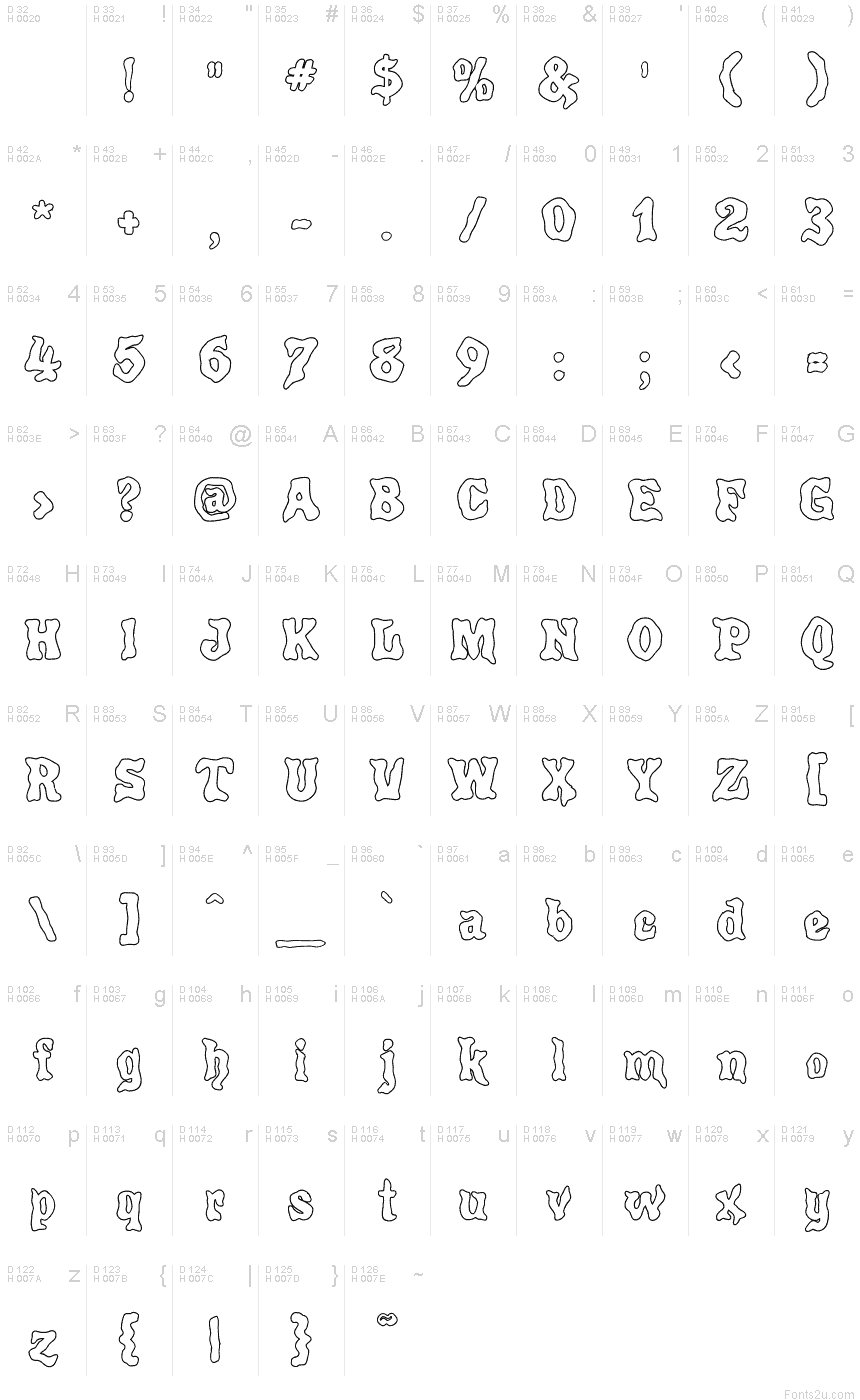
Poultrygeist Out
Poultrygeist Out by Apostrophic Laboratories is a free spooky outline display font with the wobble of old horror lettering and a hand-drawn, slightly melted edge. The letters look puffed and uneven, with soft, blobby contours that keep the outline airy rather than heavy, so the whole font feels playful first and eerie second.
It suits Halloween posters, haunted-house flyers, novelty packaging, party invites, and campy title cards where a free font with a goofy scare factor fits the mood. Because the outline stays open and the shapes lurch from letter to letter, it also works well for short headlines, cover lines, and drop-ins that need a cartoon-creepy voice.